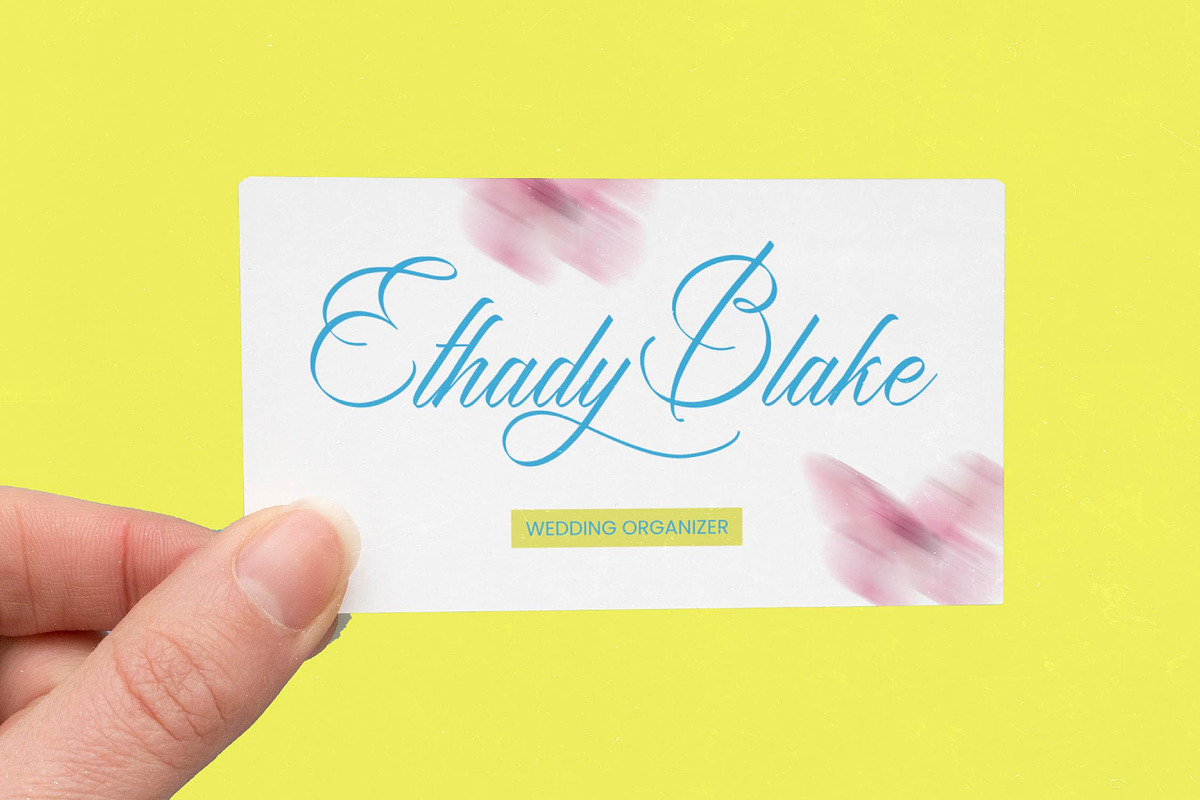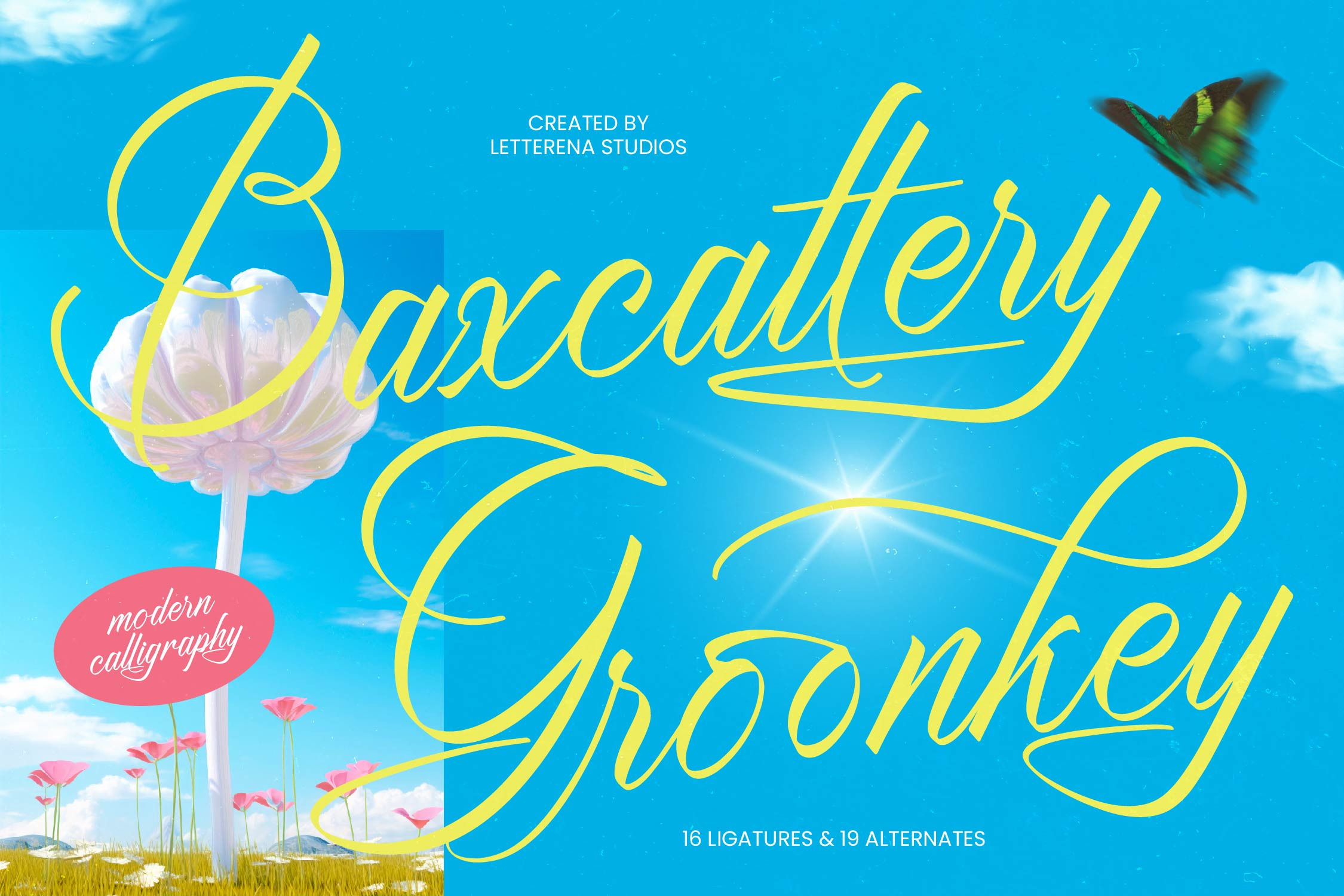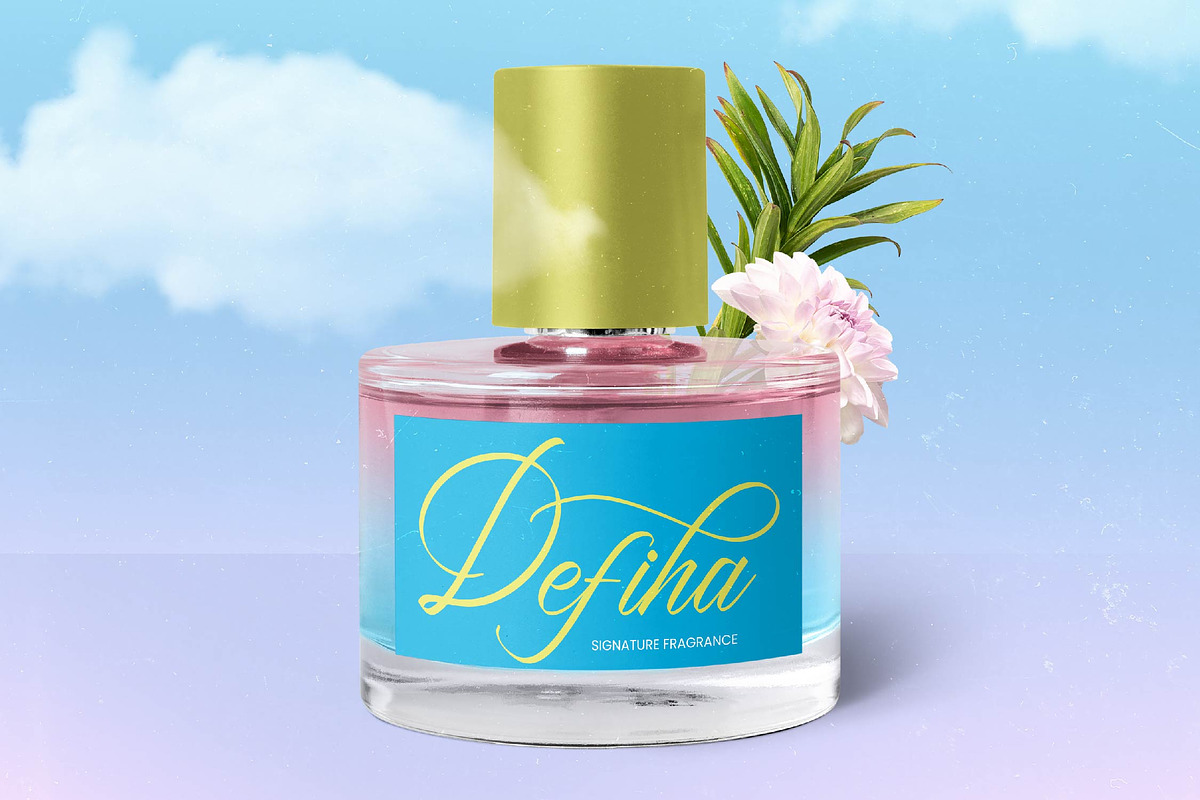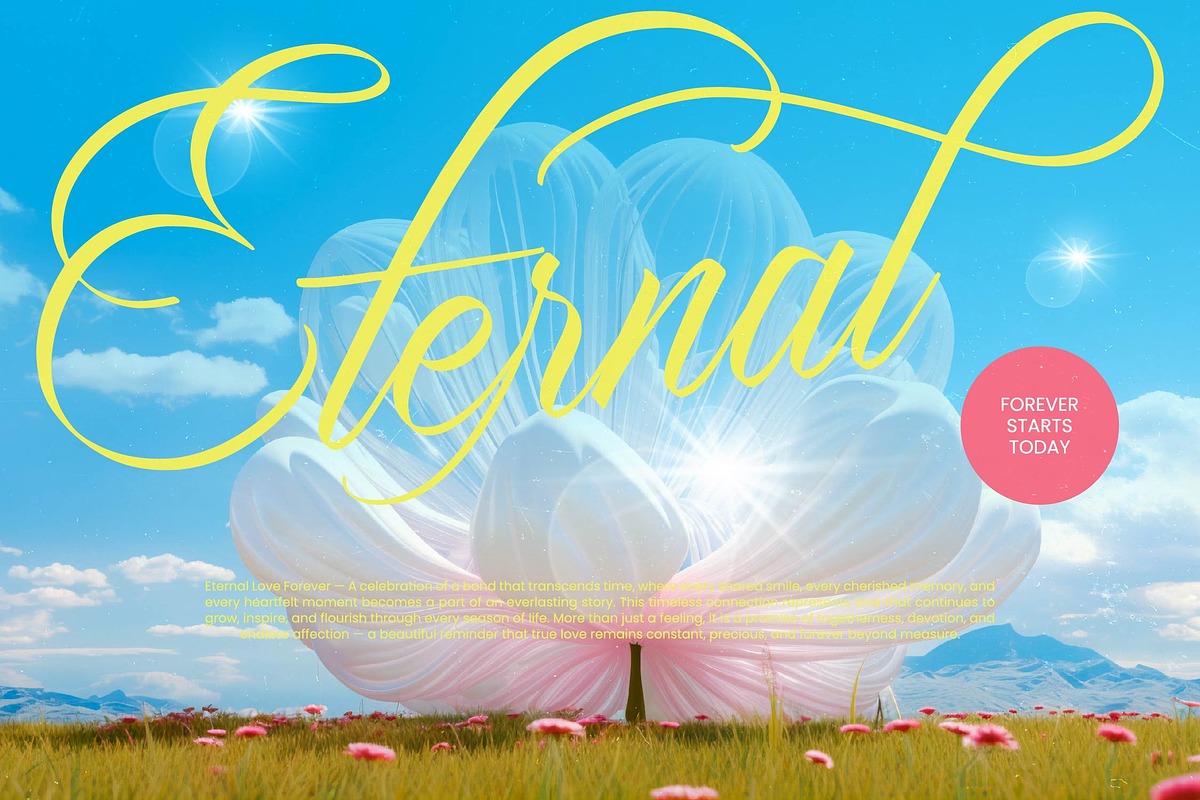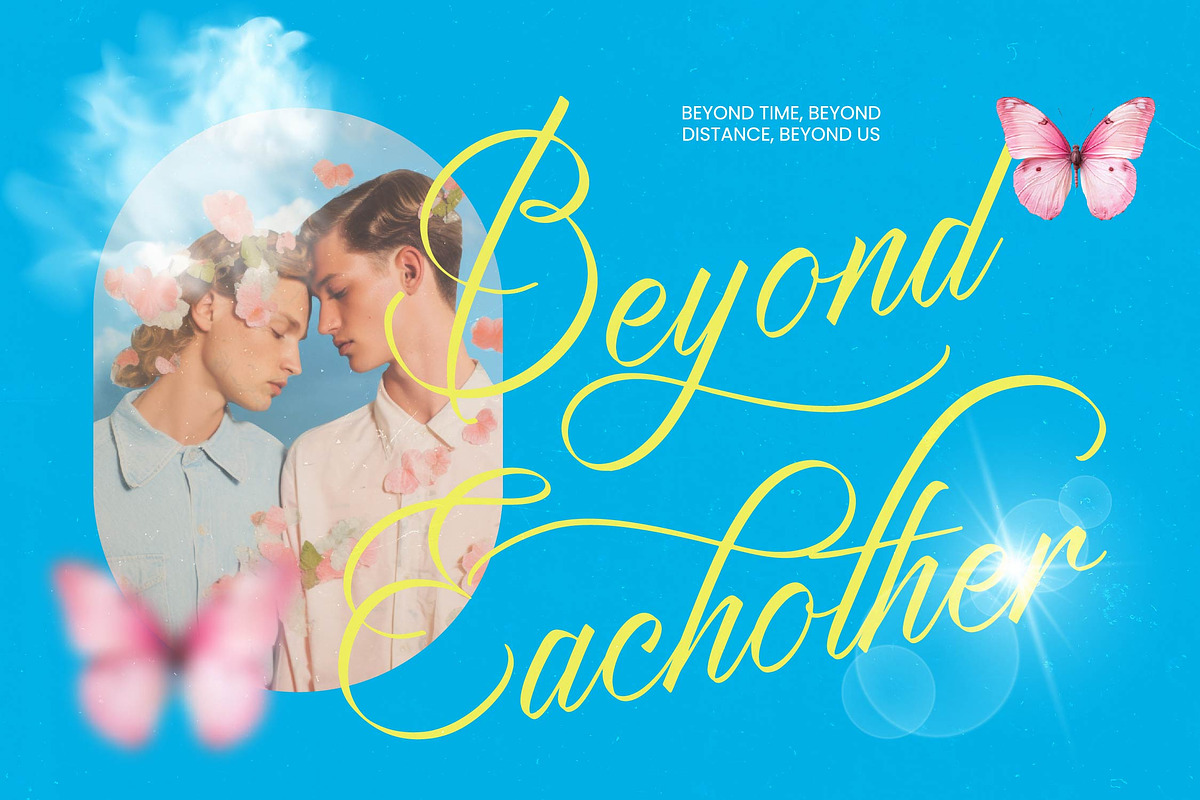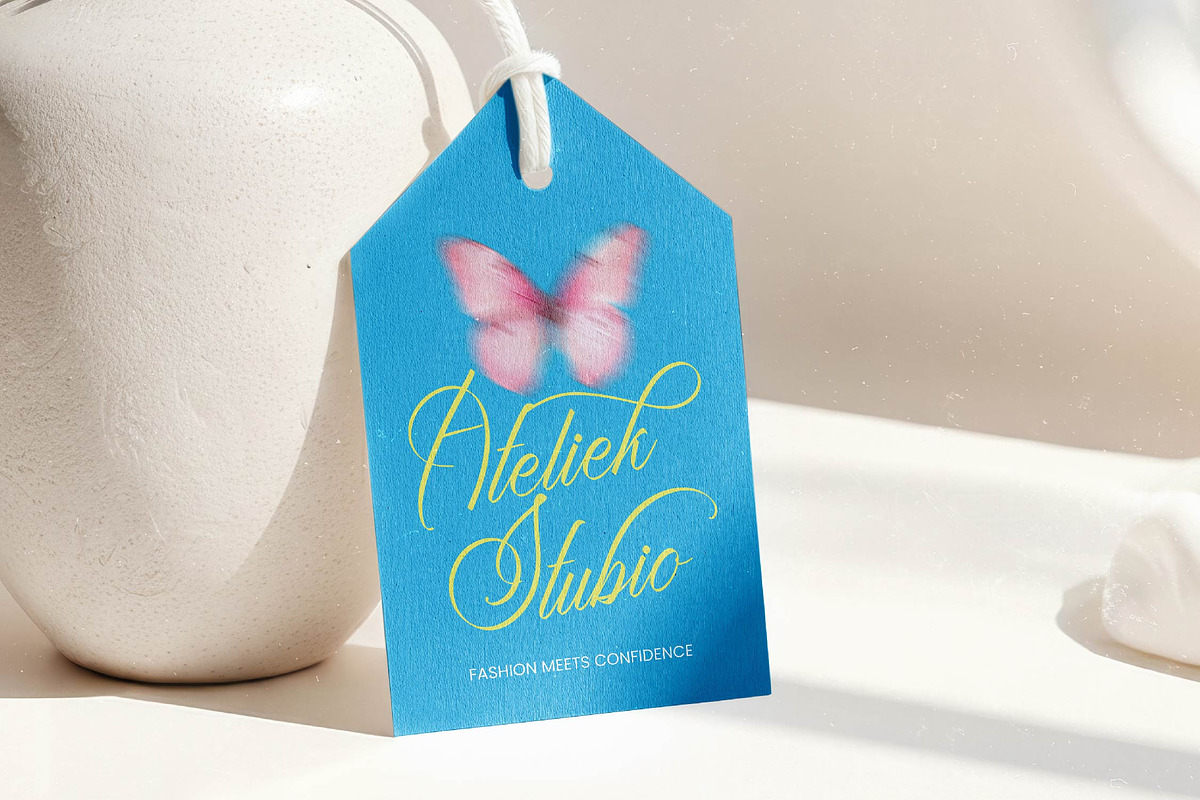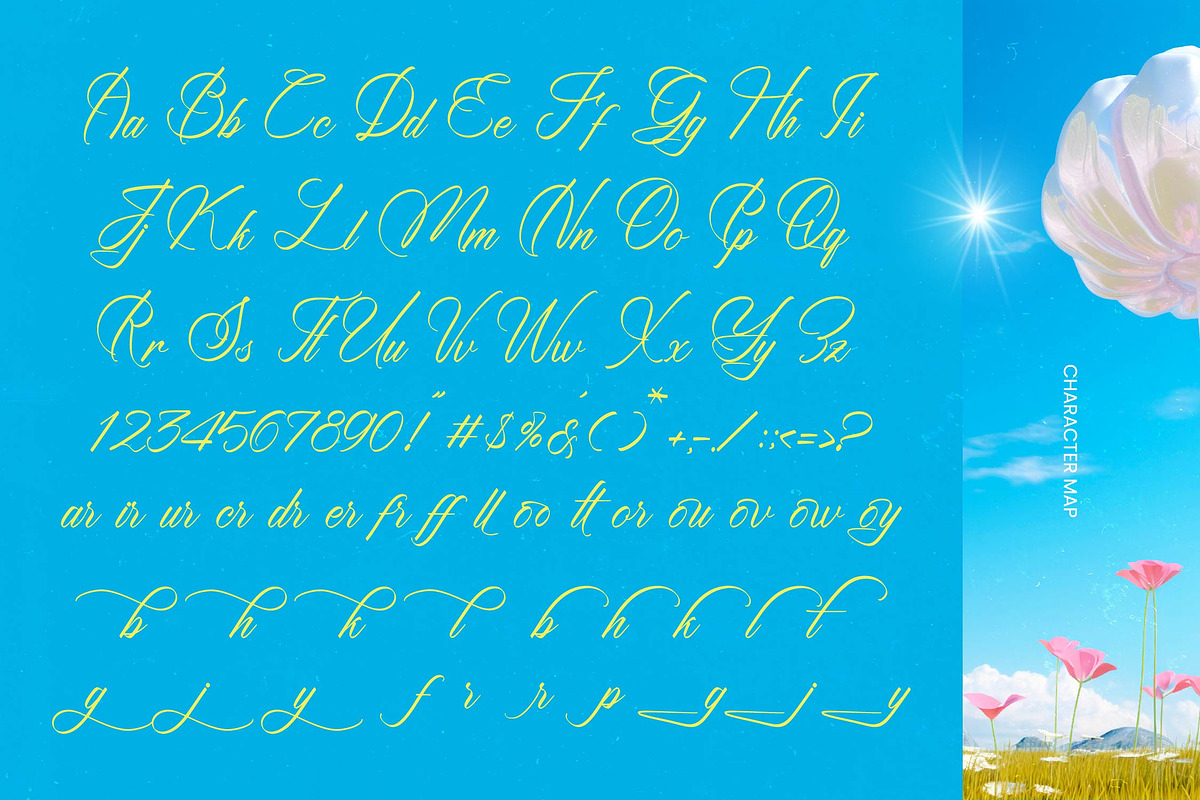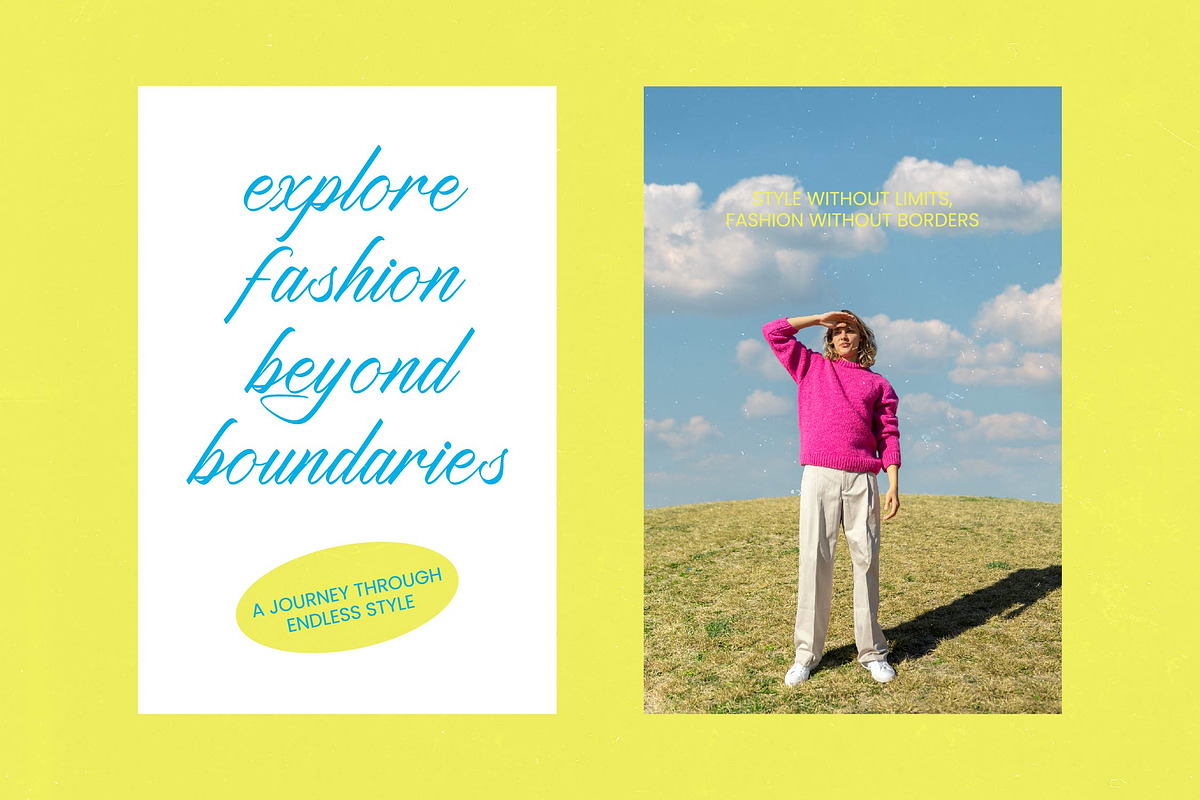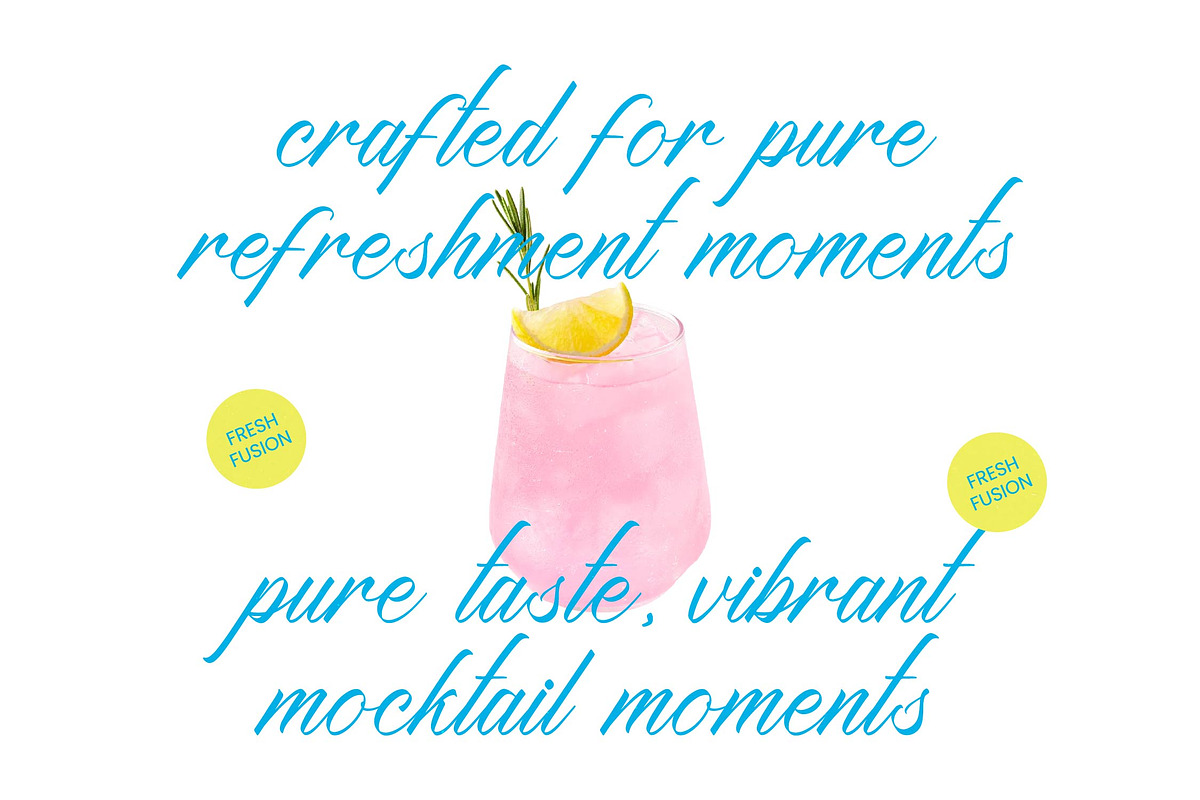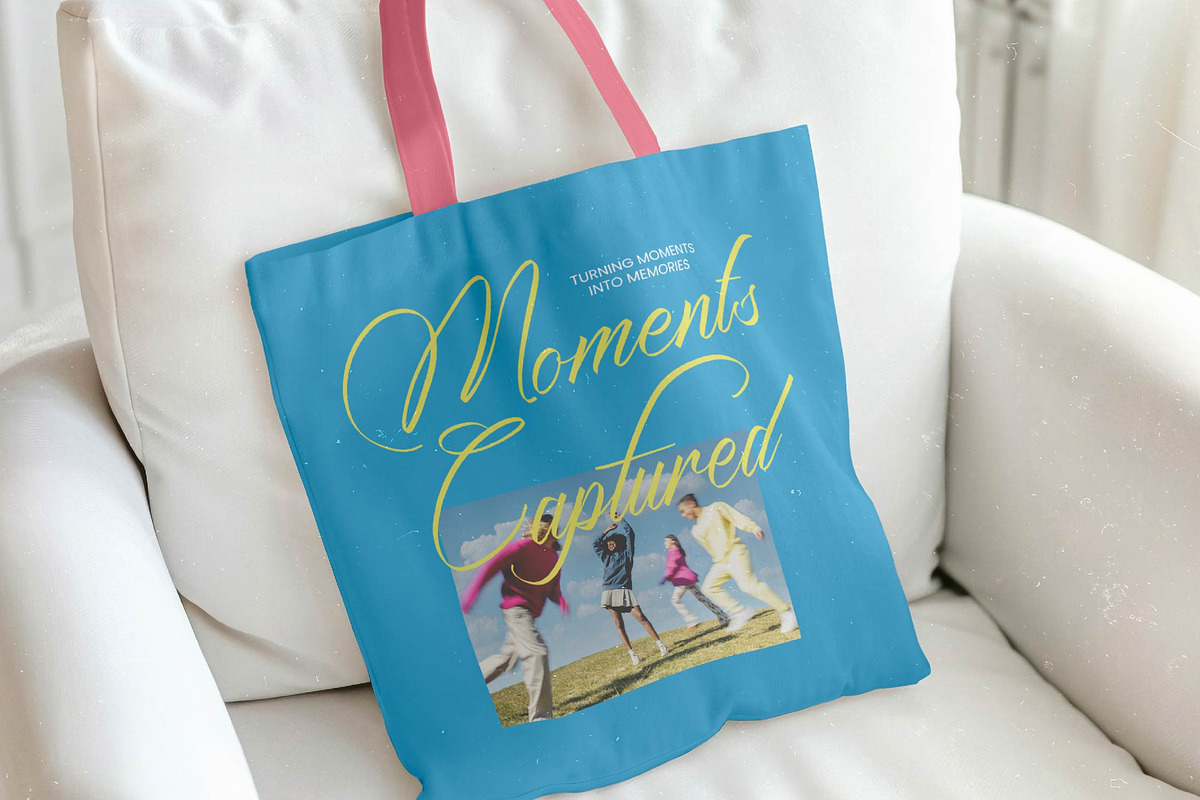
Baxcattery Groonkey Calligraphy Font
Baxcattery Groonkey - Modern Calligraphy
Elevate your creative vision with a typeface that embodies movement and grace. Baxcattery Groonkey - Modern Calligraphy is a masterpiece of organic flow and artistic flair, designed to bring a sense of hand-drawn elegance to every project. Its sweeping strokes and rhythmic energy capture a sophisticated aesthetic that is both contemporary and timeless, ensuring your message resonates with maximum visual impact.
Experience unparalleled design flexibility with a rich array of custom features engineered for professional results. Baxcattery Groonkey - Modern Calligraphy includes 16 seamless ligatures and 19 unique alternates, allowing designers to create bespoke typography that feels truly personalized. This versatile script transforms standard text into a dynamic work of art, providing the essential tools for premium visual communication.
Unlock international potential and reach a global audience with ease through superior character engineering. With its extensive multilingual support, Baxcattery Groonkey - Modern Calligraphy adapts seamlessly across global markets, making it incredibly versatile for international projects. Whether you are targeting local boutiques or worldwide campaigns, this font ensures consistent brand identity across various linguistic landscapes and diverse media platforms.
Perfectly suited for high-impact visual storytelling, this font is the ideal choice for a variety of upscale applications. Baxcattery Groonkey - Modern Calligraphy is perfect for luxury branding, premium packaging, wedding invitations, and high-end editorial design. Its chic personality also makes it a standout option for social media graphics and lifestyle photography overlays where a touch of refined beauty is required.